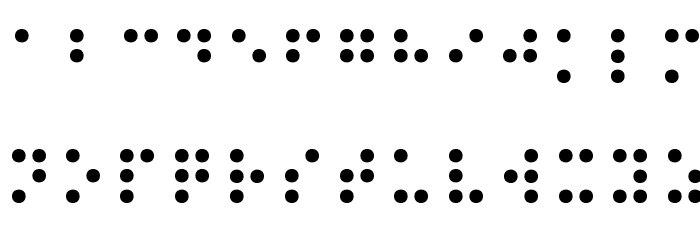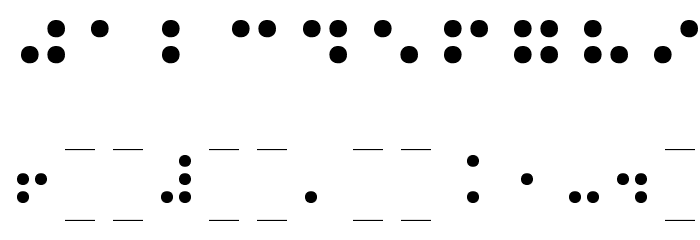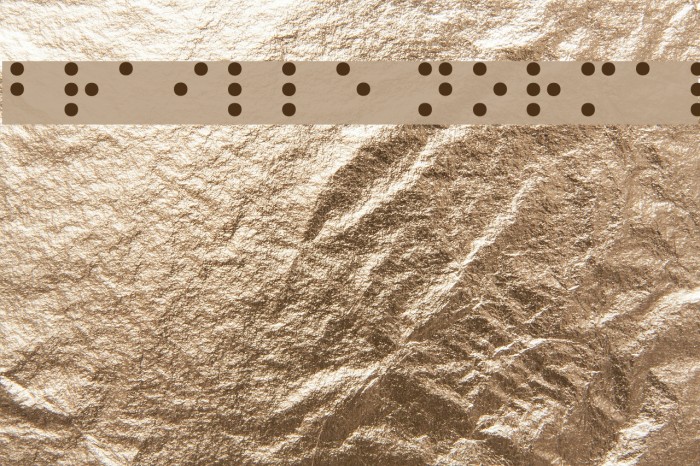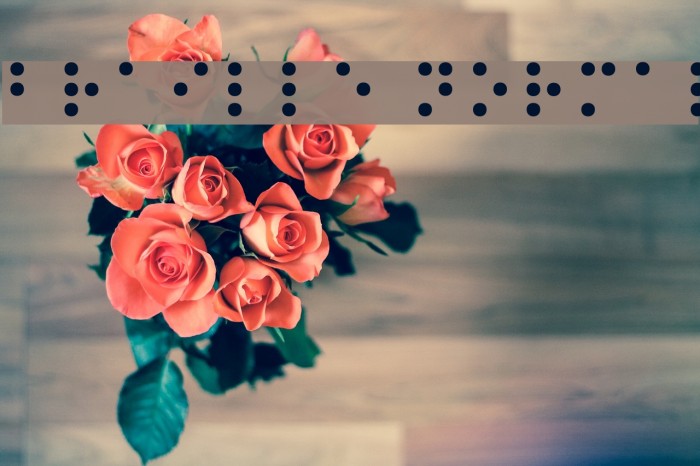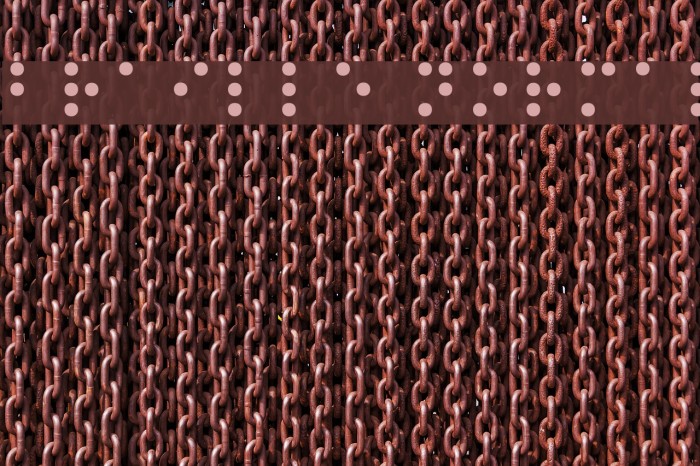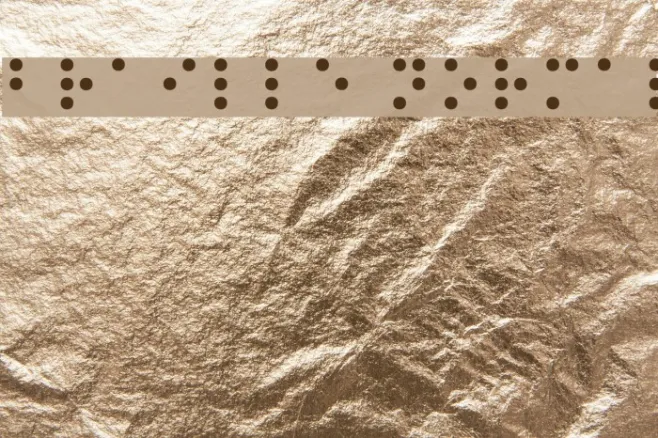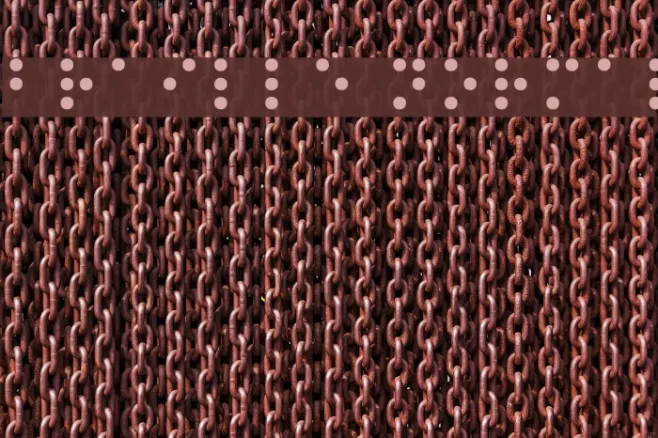
Braille Normal Font
This is a representation of Braille, a tactile writing system used by people who are visually impaired. Each character is made up of a combination of raised dots arranged in a 2x3 grid. The system allows for the encoding of letters, numbers, and punctuation, providing a means of literacy and communication for those who cannot rely on visual text. Braille is not a font in the traditional sense but rather a code that can be transcribed into various languages and formats. It is essential for accessibility and inclusivity, enabling individuals to read and write through touch.
Braille is a tactile writing system using raised dots for the visually impaired.
- Proposed Projects: Ideal for creating accessible materials, educational tools, and signage for visually impaired individuals.
- Overall Style: Functional
- Use Case: Accessibility, Educational materials, Signage